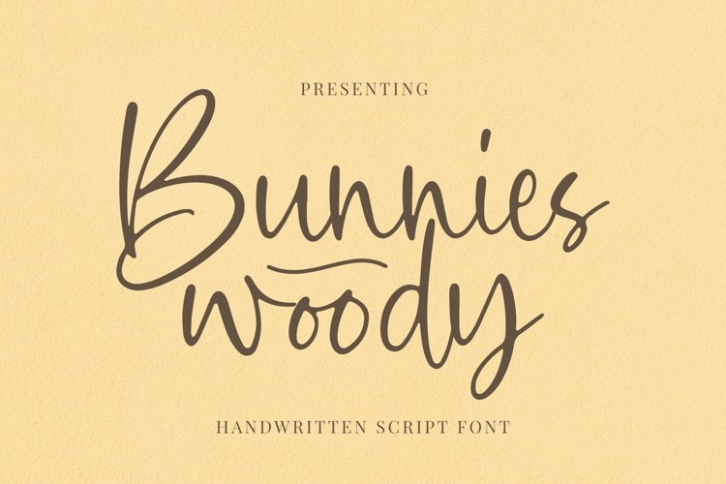
Bunnies Woody is a beautiful font that was designed by plusstore. It's a great choice for designers and creatives who need such a font. It was released on August 1, 2021 and the file size is 18.80 MB. Bunnies Woody may give a more youthful, expressive and casual look to your project. It is a very beautiful, refined, elegant, and high-quality font.